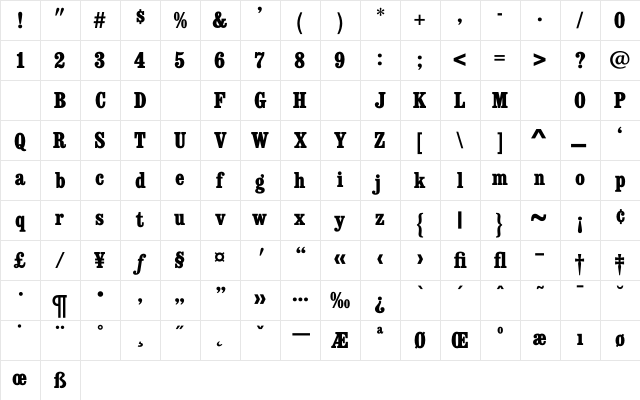
ConsortExtraBoldCondensed Regular
Design Context for ConsortExtraBoldCondensed
ConsortExtraBoldCondensed is a composed and adaptable typeface that performs quietly and consistently across a wide range of design contexts. Its bold stroke weight gives it real presence on the page. Its narrow stance lets it pack a punch even in space-constrained designs.
Pro Tip: Use ConsortExtraBoldCondensed in both headline and body roles to test its range before committing to a single application.